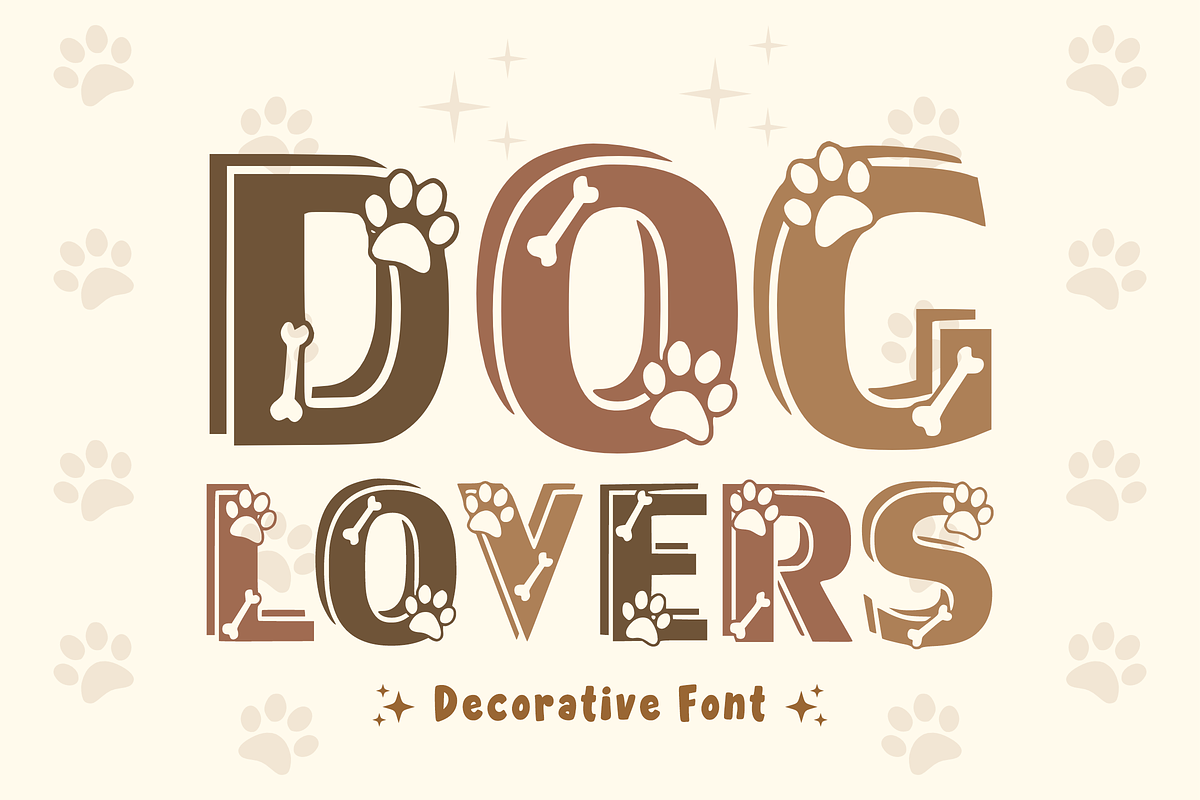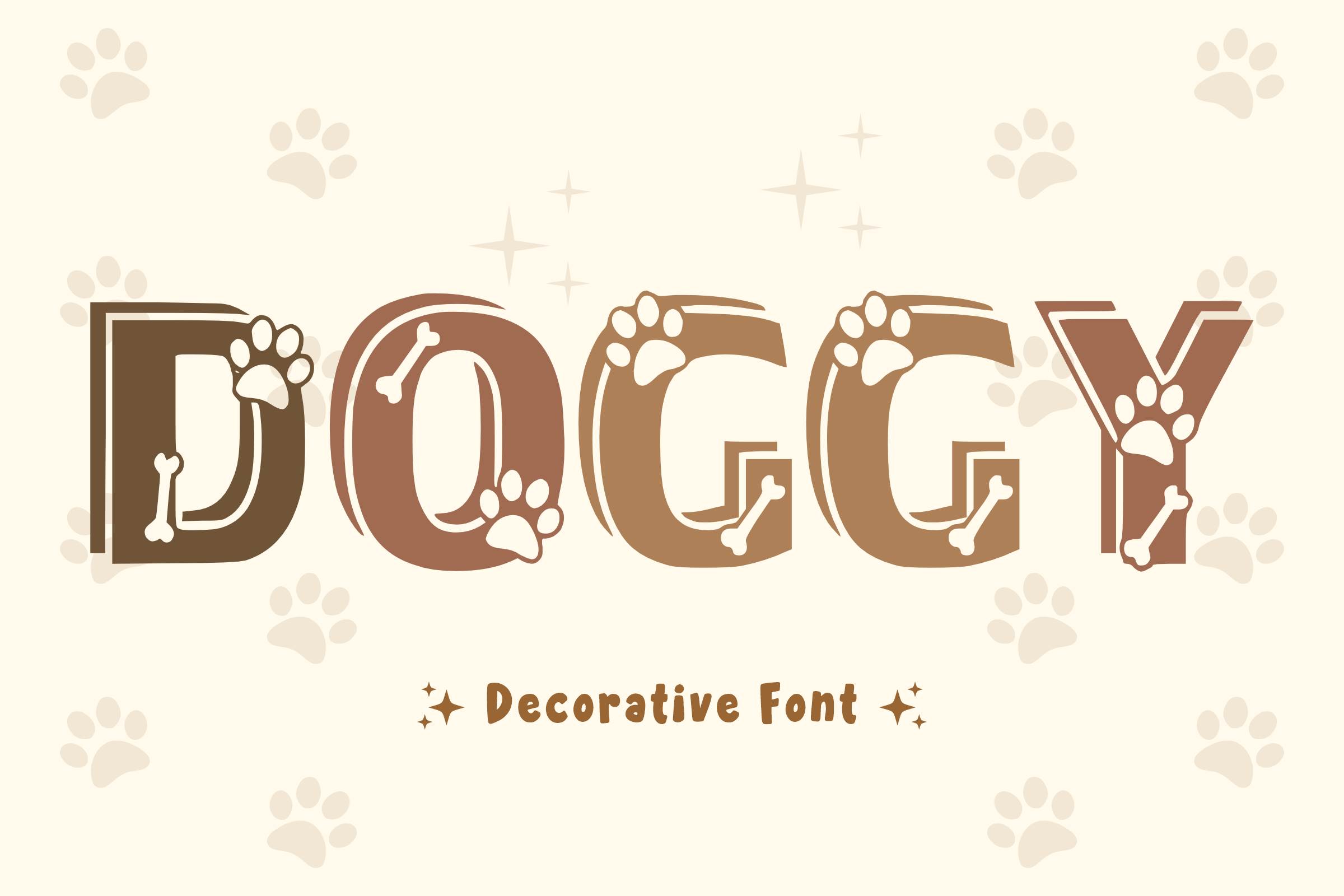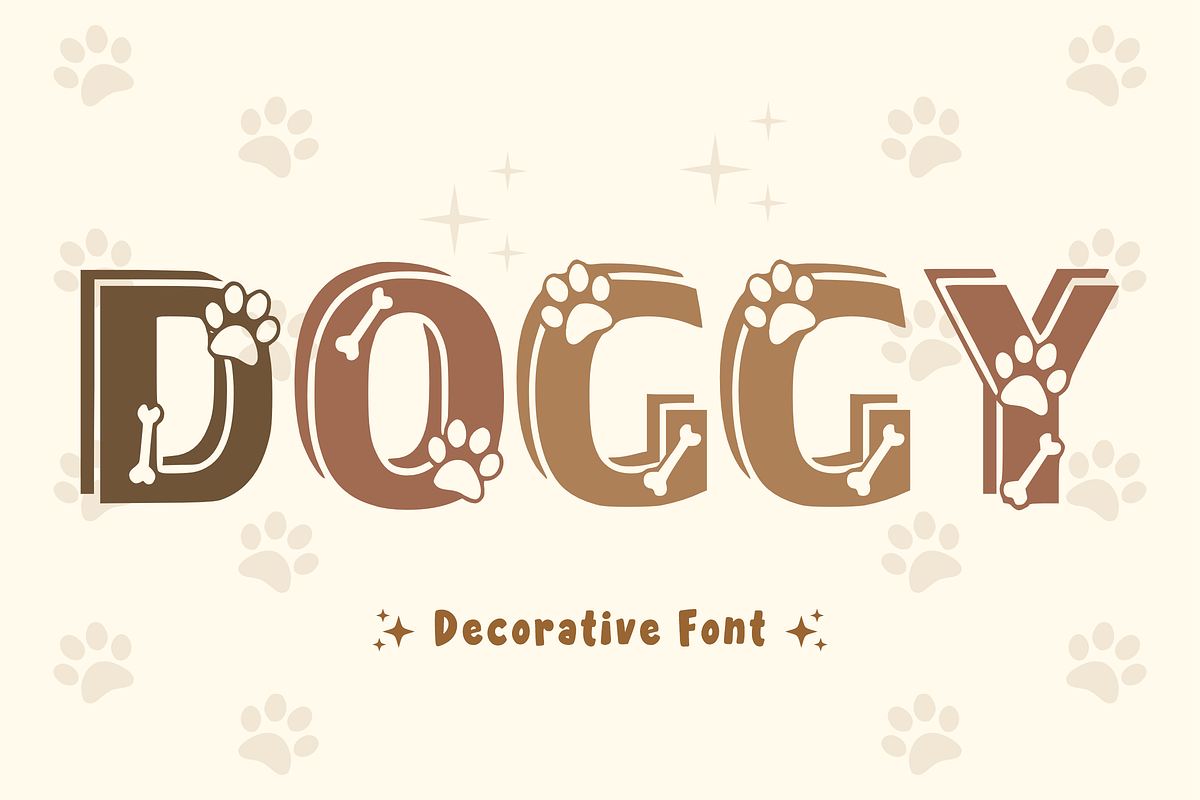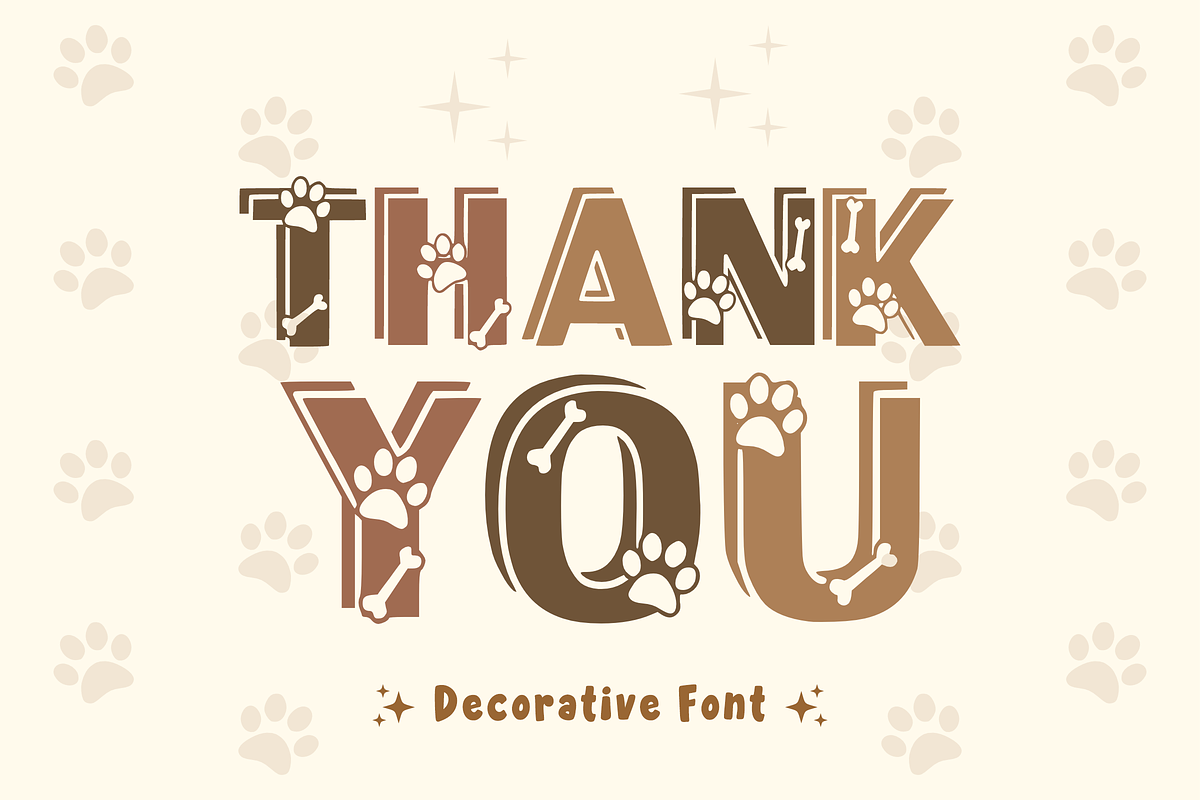
Doggy - Cartoon Font Type
Welcome to “Doggy,” a charming font specially designed for all canine enthusiasts. Each letter in this delightful font is beautifully unique, showcasing absolute cuteness that captures the essence of our furry companions. Doggy is an ode to contemporary design trends, making it ideal for adding a touch of whimsy to your creative projects. It’s a fantastic choice for enhancing custom-made t-shirts, transforming ordinary mugs into art pieces that tell stories, and adding character to your personalized cards. Be it sublimation techniques or crafting tumblers, invite Doggy into your collection to breathe life into your amazing creations.